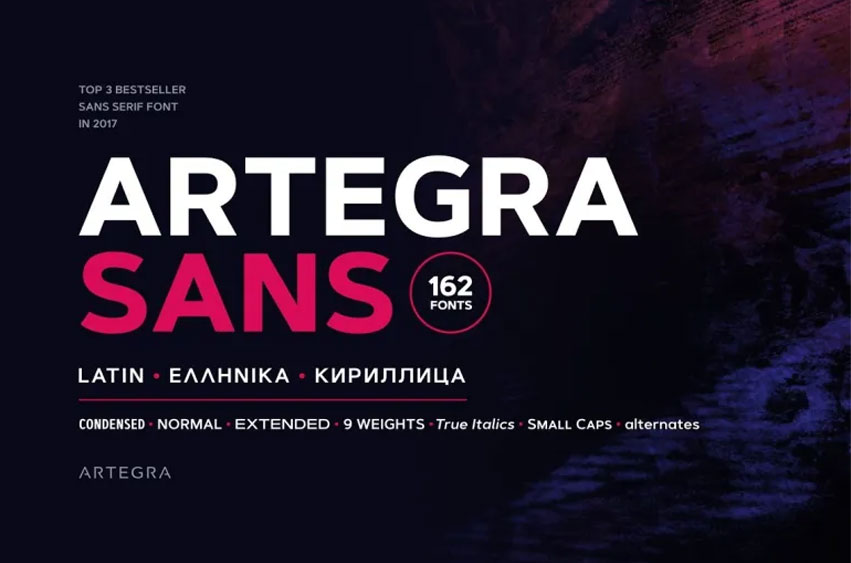
Artegra Sans Font
Artegra Sans Fontconcept was simple: to design one of the world’s largest typeface families while upholding top aesthetic and technical standards across every font included in it. This resulted in an exceptional 162-font typeface which serves as a testament to writing’s universal unifying power.
Artegra Sans is a nine-weight family comprised of nine true italic weights that match condensed, normal and extended widths for each font weight. Each font boasts over 1500 glyphs for use with Latin to Cyrillic scripts as well as numerous OpenType features like smaller caps, style alternatives or ordinals, superscript fractions subscript liner oldstyle figures and much more.